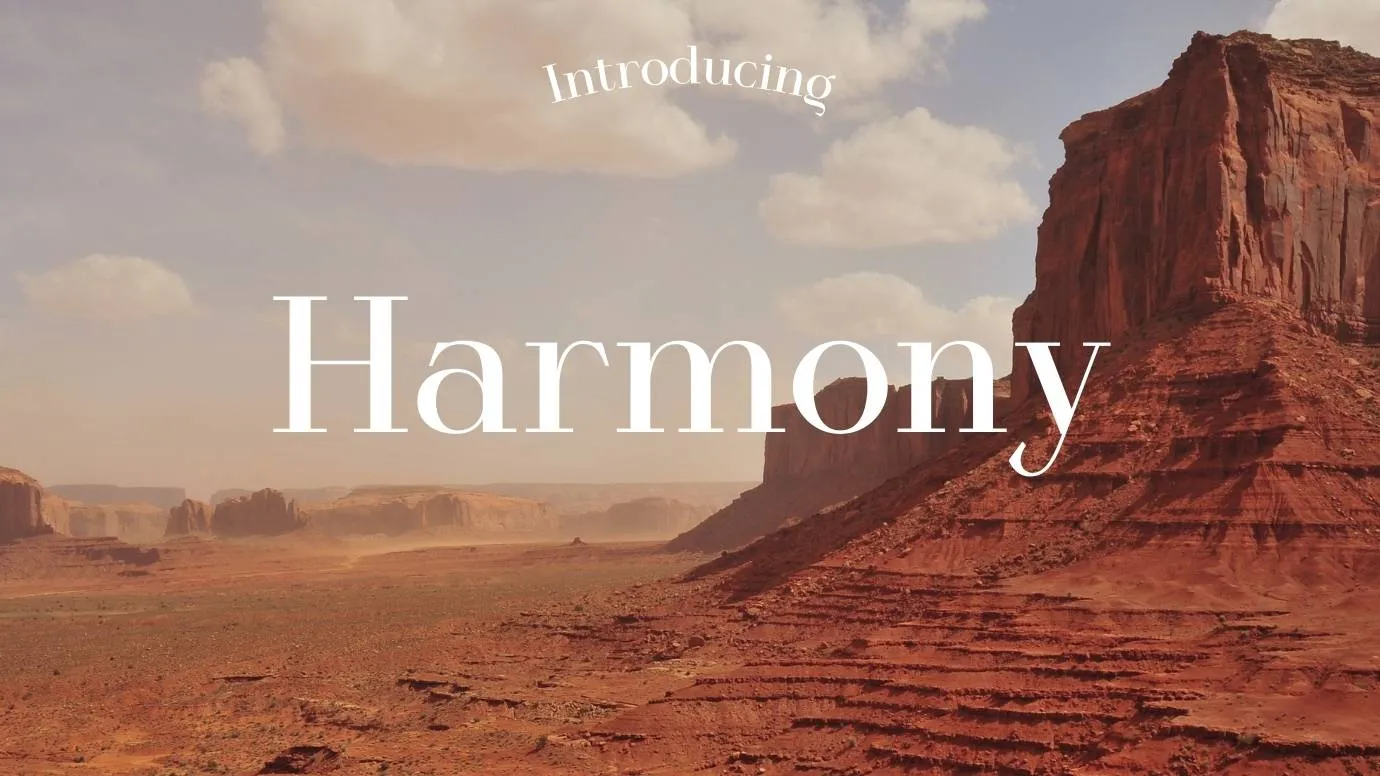
Harmony Font Family is a modern serif typeface that has an elegant look. This font was shared by Nevsky Type and it was mainly designed by Artem Nevsky.